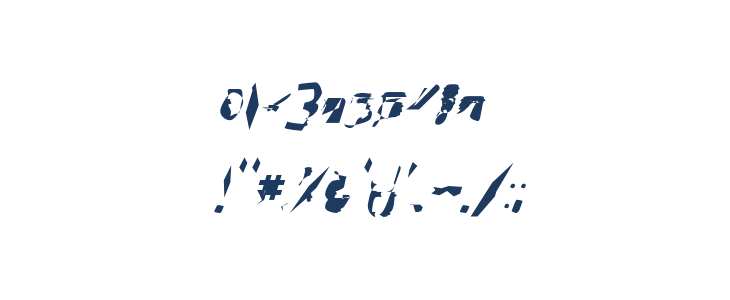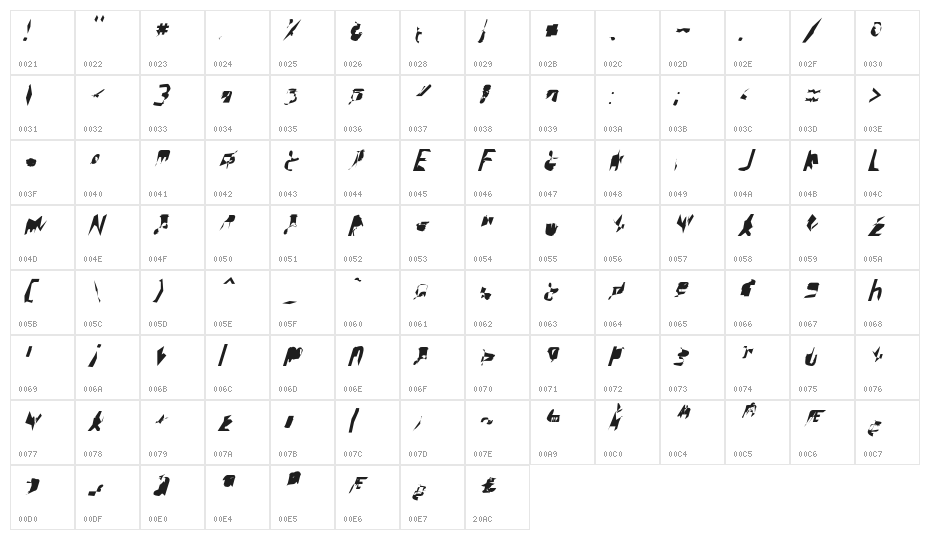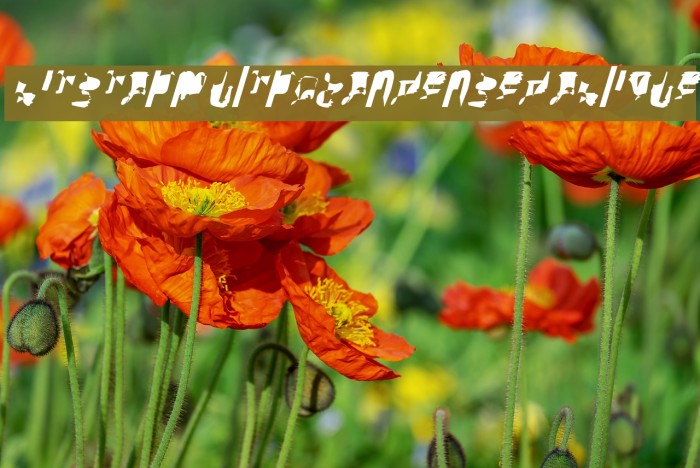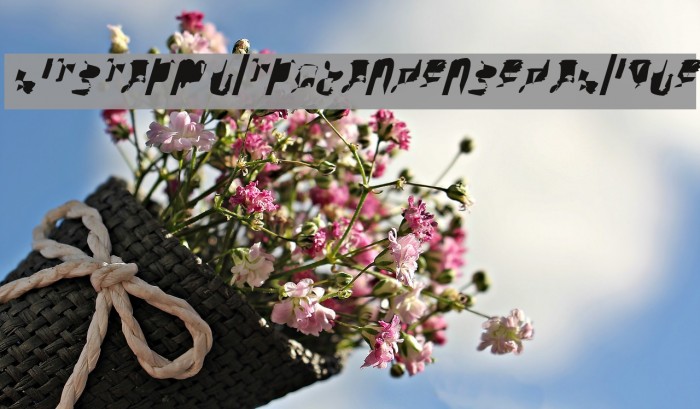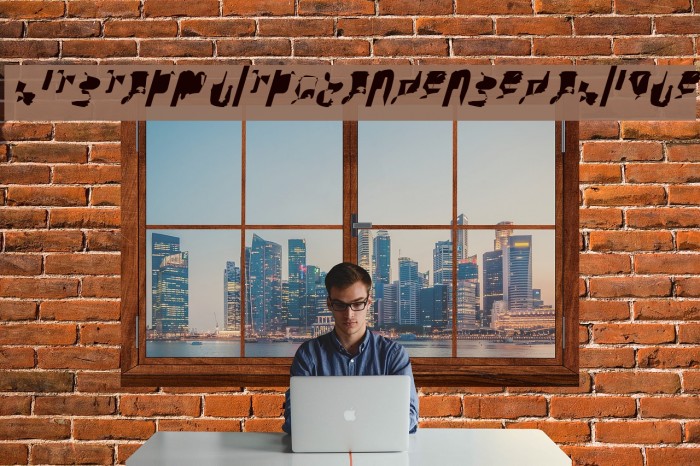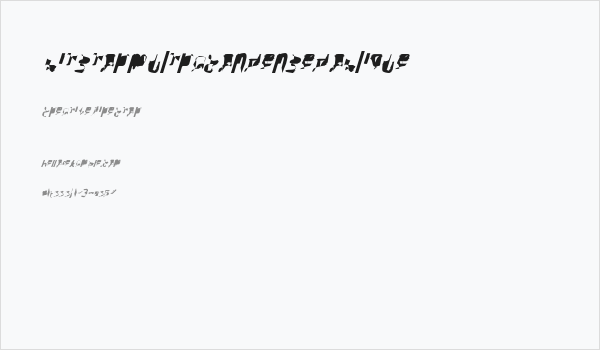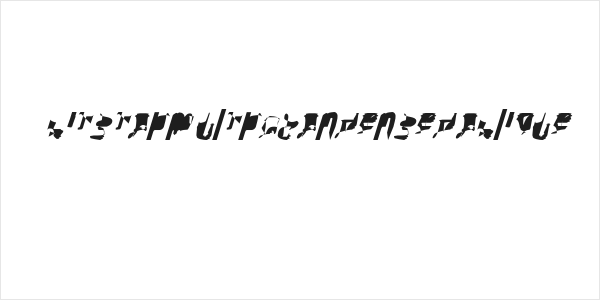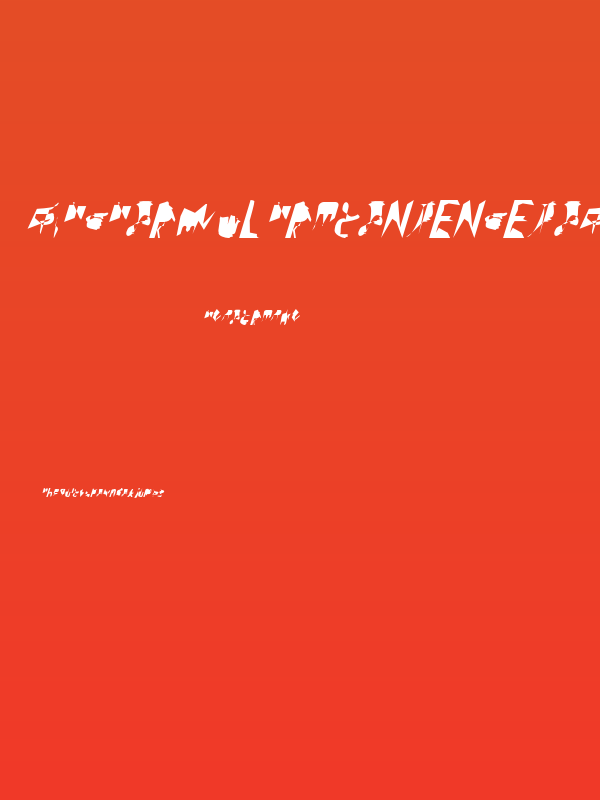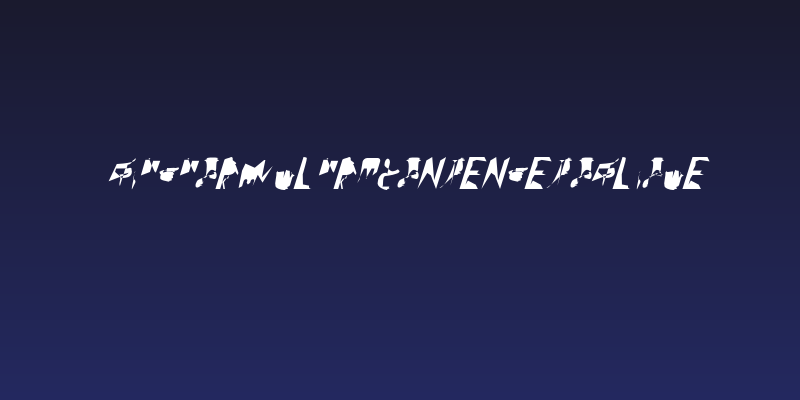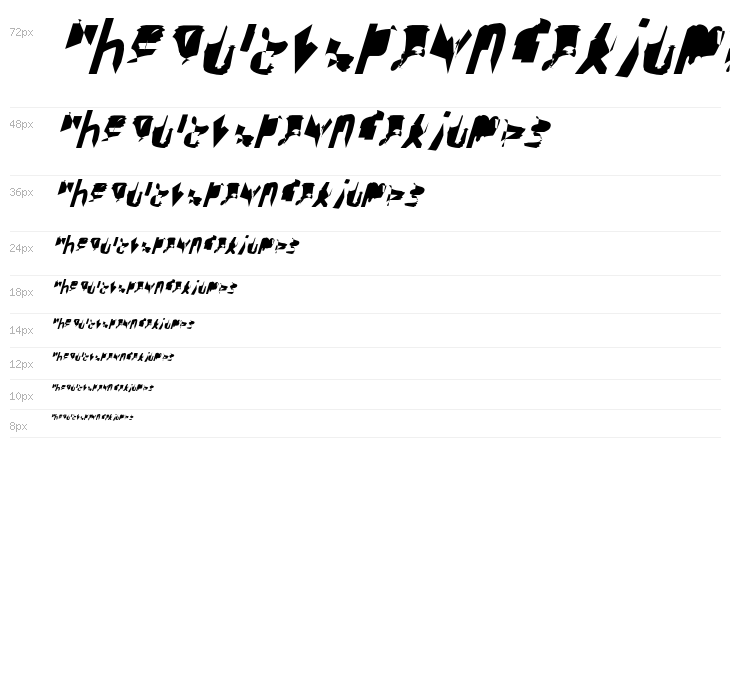
bitstorm ultracondensed oblique Font
bitstorm ultracondensed oblique Description
This font features an ultra-condensed and oblique style, characterized by sharp, angular lines and a fragmented appearance. The letters are heavily stylized, with strokes that appear to be broken or shattered, creating a dynamic and edgy look. The design is highly abstract, making it suitable for projects that require a bold and unconventional aesthetic. The font's unique structure may challenge readability at smaller sizes, but it excels in creating a striking visual impact when used in larger formats. Its artistic and chaotic nature lends itself well to modern and avant-garde design projects.
| Overall Style | Modern, Avant-garde |
| Proposed Projects | Ideal for album covers, posters, and branding that seeks a modern, edgy, and artistic flair. |